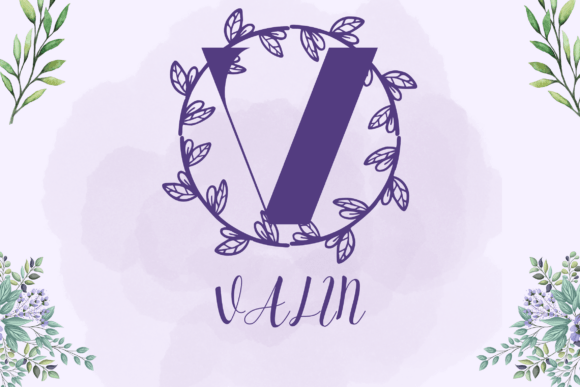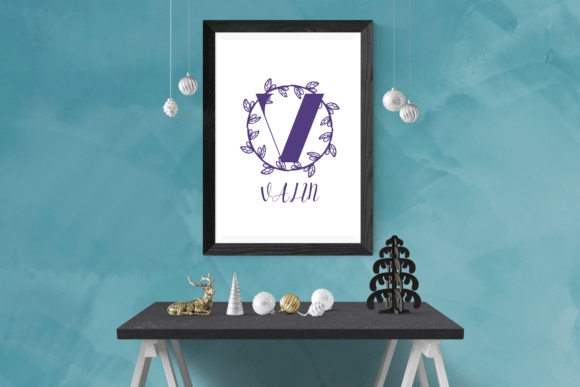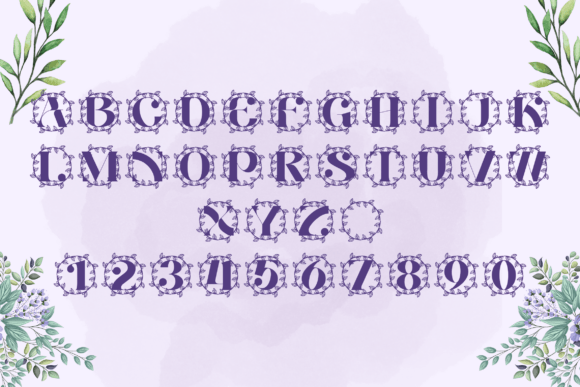
Introducing Everlaurel: The Elegant Monogram Font for Timeless Designs
Are you a designer or crafter looking for a font that can elevate your projects to a new level of sophistication? Look no further than Everlaurel, the monogram font that turns simple initials into stunning laurel-inspired emblems. With its classic, calm, and premium feel, Everlaurel is the perfect choice for creating beautiful designs that exude elegance and refinement.
The Characteristics of Everlaurel Monogram Font
Everlaurel Monogram Font is designed with smooth and balanced strokes, ensuring that letters remain clear and legible at any size. This makes it an ideal choice for a wide range of applications, from small tags and labels to large signs and luxury packaging. The font’s open counters also play a crucial role in maintaining its clarity, allowing tiny details to stay crisp and large designs to look elegant and refined.
Design Possibilities with Everlaurel
The versatility of Everlaurel Monogram Font makes it suitable for various design projects, including:
- Wedding Suites: Create beautiful wedding monograms, invitations, and stationery that set the tone for a luxurious and memorable celebration.
- Boutique Logos: Elevate your brand’s identity with a custom monogram that exudes elegance and sophistication.
- Keepesake Gifts: Add a personal touch to gifts, such as candles, jewelry, and home decor, with beautifully designed monograms.
- Wax Seals: Create custom wax seals with Everlaurel’s intricate details, adding a touch of luxury to letters, gifts, and documents.
- Stationery: Design professional and stylish stationery, including letterheads, business cards, and envelopes.
- Luxury Packaging: Elevate your brand’s packaging with custom monograms and logos that convey a sense of high-end quality.
The Benefits of Using Everlaurel Monogram Font
By incorporating Everlaurel Monogram Font into your designs, you can:
- Instantly Elevate Your Designs: Add a touch of sophistication and elegance to your projects, making them stand out from the crowd.
- Create Timeless Designs: Everlaurel’s classic and refined feel ensures that your designs remain relevant and stylish for years to come.
- Save Time and Effort: With Everlaurel’s clear and legible strokes, you can create beautiful designs quickly and efficiently.
- Enhance Brand Identity: Use Everlaurel to create a consistent visual brand language that reflects your brand’s values and personality.
Tips for Using Everlaurel Monogram Font
To get the most out of Everlaurel Monogram Font, consider the following tips:
- Experiment with Different Sizes: Everlaurel’s smooth strokes ensure that it looks great at any size, so don’t be afraid to experiment with different scales.
- Pair with Complementary Fonts: Combine Everlaurel with other fonts to create a unique and visually appealing typography.
- Play with Colors: Everlaurel’s elegant design looks great in a variety of colors, so experiment with different hues and combinations.
Everlaurel Monogram Font is a versatile and elegant font that can elevate your designs to new heights. With its smooth strokes, open counters, and timeless feel, it’s the perfect choice for designers and crafters looking to create beautiful and sophisticated projects. Whether you’re working on wedding suites, boutique logos, or luxury packaging, Everlaurel is sure to bring a touch of classic charm and refinement to your designs.